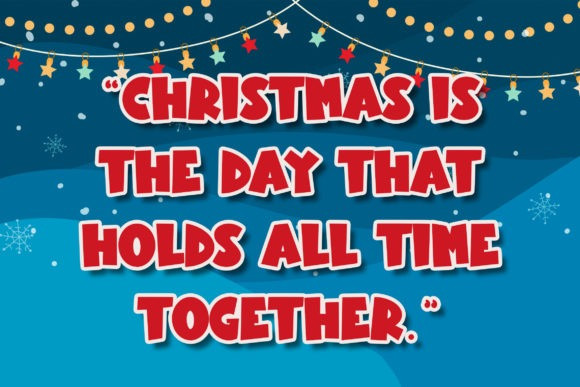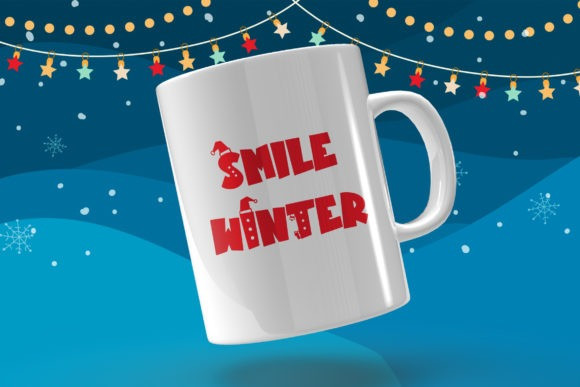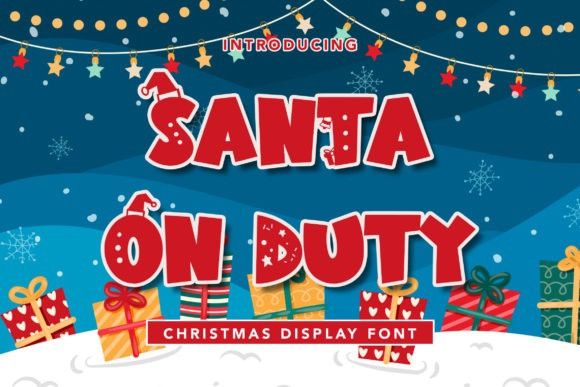
Santa On Duty Font
Santa on duty Display Font is a Christmas-themed display font with distinctive and playful characters. This typeface is perfect for branding projects, logos, wedding designs, media posts, advertisements, product packaging, product designs, labels, photography, watermarks, invitations, stationery, and any project.